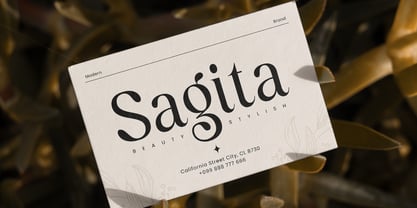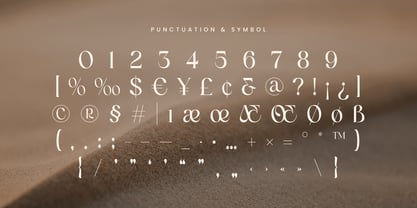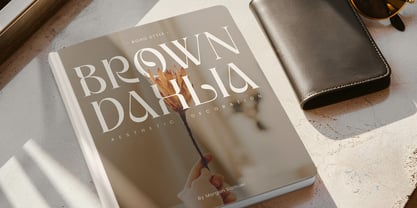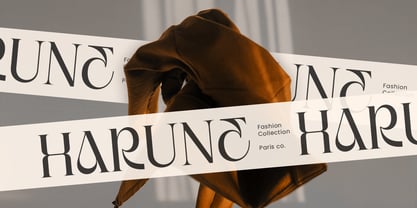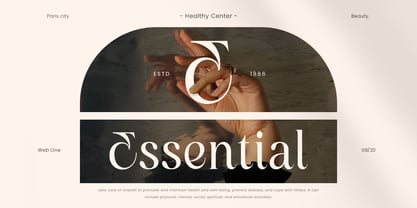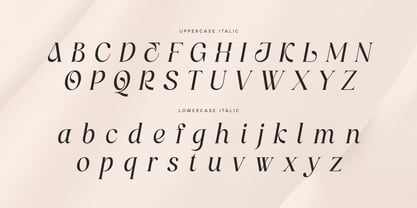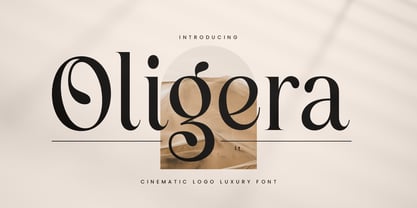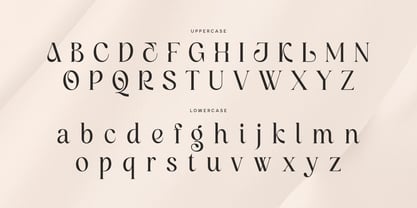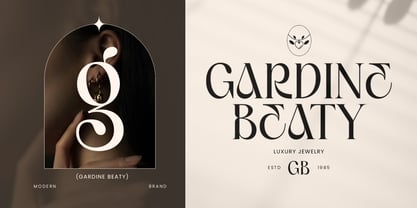
Oligera
by Sensatype Studio
The Oligera Font Family was designed by Zamroni Hamzah and published by Sensatype Studio. Oligera contains 2 styles and family package options. More about this family
An exclusive luxury font tailored for sophisticated and modern branding, offering an elegant aesthetic to enhance your brand's allure. Crafted with unique alternates, this font is designed to elevate the value of your brand. Whether you're a designer or a product owner seeking stylish and modern solutions, this font provides the perfect answer. Boasting an array of bohemian characters, it opens the door to endless creative possibilities, allowing you to create a myriad of variations for your unique and stylish designs.
• Unique Characters
• Character set A-Z
• Numerals & Punctuation
• Accented Characters (West Europe)
Designers: Zamroni Hamzah
Foundry: Sensatype Studio